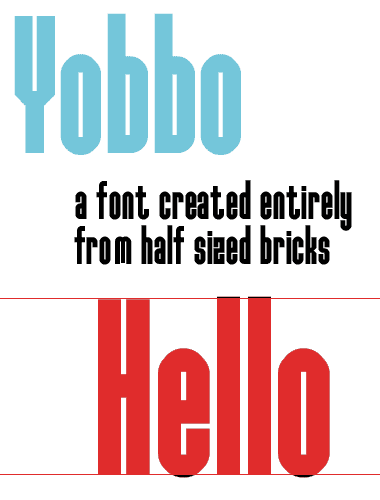
• This has been in the making for quite some time and I was only able to work on it because of the new fontstruct features. all bricks i used for this fontstructions were half-sized bricks. i mean half-circles, half-sized blocks and so on. also i worked with 1.75 scaling. thanks to this kind of setup i was able to create roundings, that go a little over or below flat-shaped letters. see the sample. also lower case letter like l, k, h and so on are a little taller than upper case letters, like in "real" fonts. the disadvantage is seen on M,W,m,w where the stem in the middle is a little too short... i had to use a very weird workaround for these 3-stem letters, so this is as good as it gets, unless fontstruct is going to have an empty space brick, that would allow me to create a fitting composite. i used lots of composites and lots of stacking. also the spacing isn't very nice, i'll see if i can do anything about that.
Very nice. We're working on something like that empty space brick you describe - that is the missing ingredient in the composite brick feature. It will be much more powerful soon!
Very nice saberrider.
@meek Yes! The empty space brick would be very useful.
Congratulations! FontStruct Staff have deemed your FontStruction worthy of special mention. “yobbo” is now a Top Pick.
Very very nice font Bravo!
I'm ambiguous about the Zz witch are very square compare to all other glyph.
I love It a perfect 10 for me
Bravo!
Your approach to overshoots here cleverly uses the jitter possible when using half-sized bricks with a fractional scaling scheme. Concurrently, this factor (2-1.75=.25 brick jitter) generates your slit-like counters with a highly controlled placement of bricks.
Your use of stacking is also quite lucid – the cleanness and consistency of the design is greatly enhanced by them (and also conceal well enough the few inconsistencies). I think with the new composite stacking feature, you can take this design again to the next level!